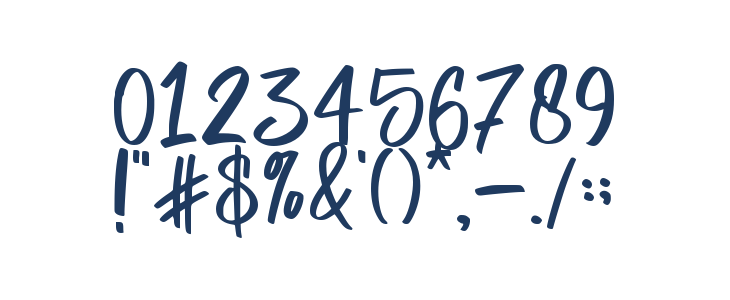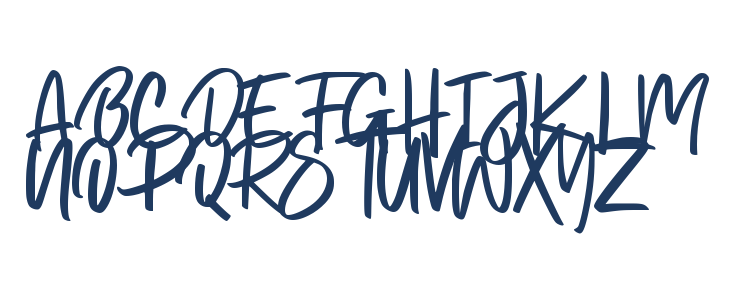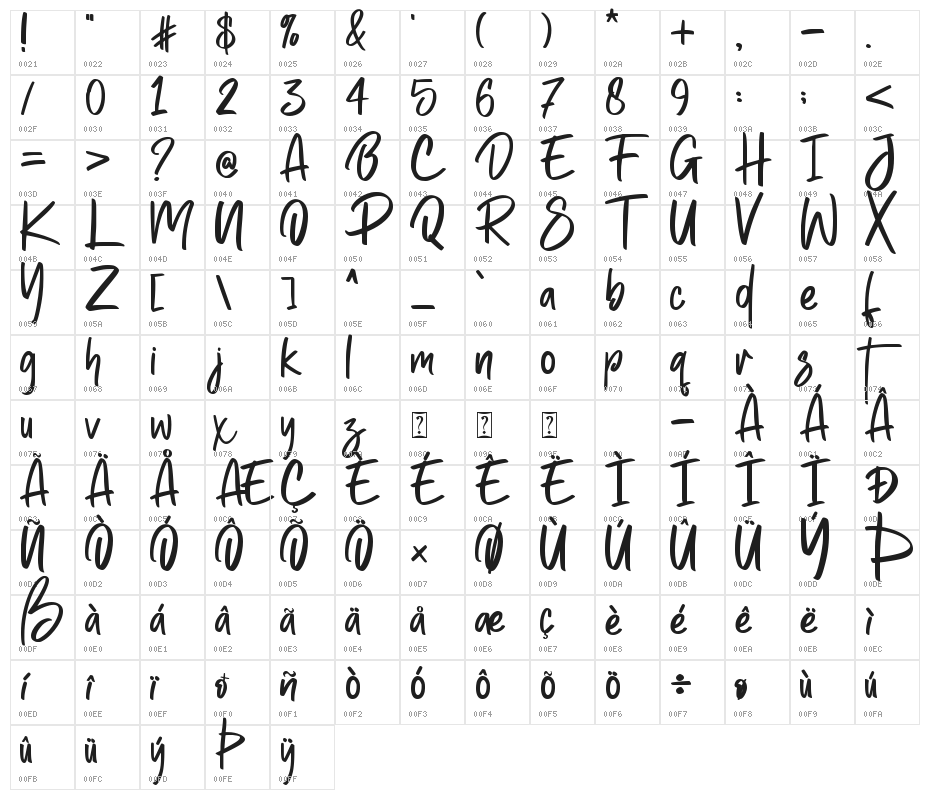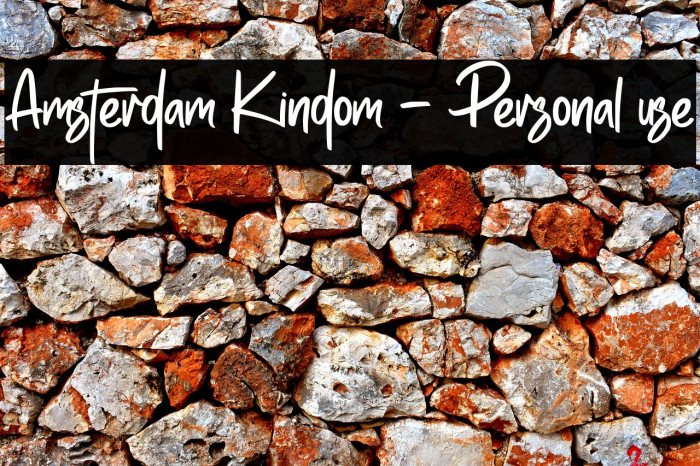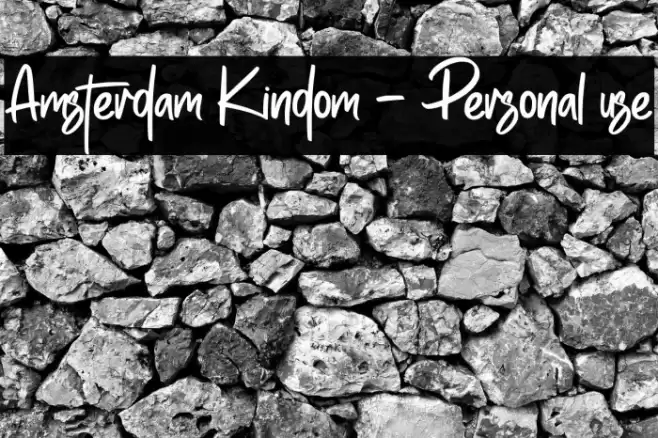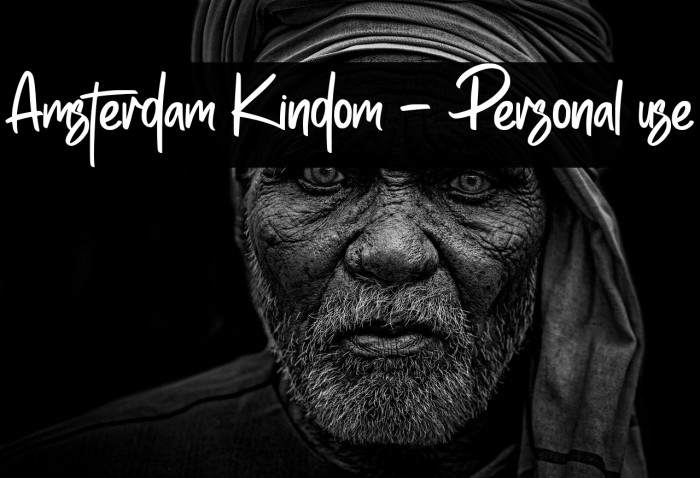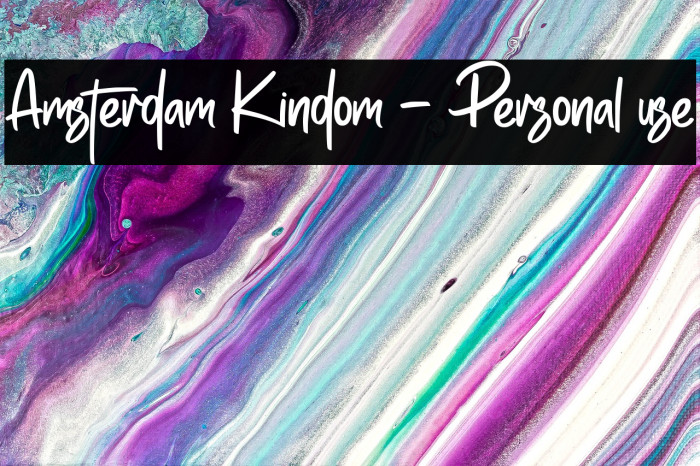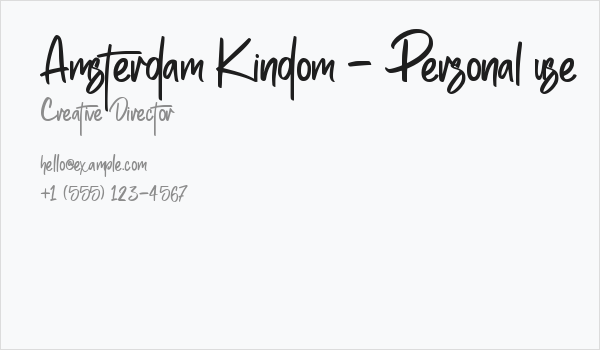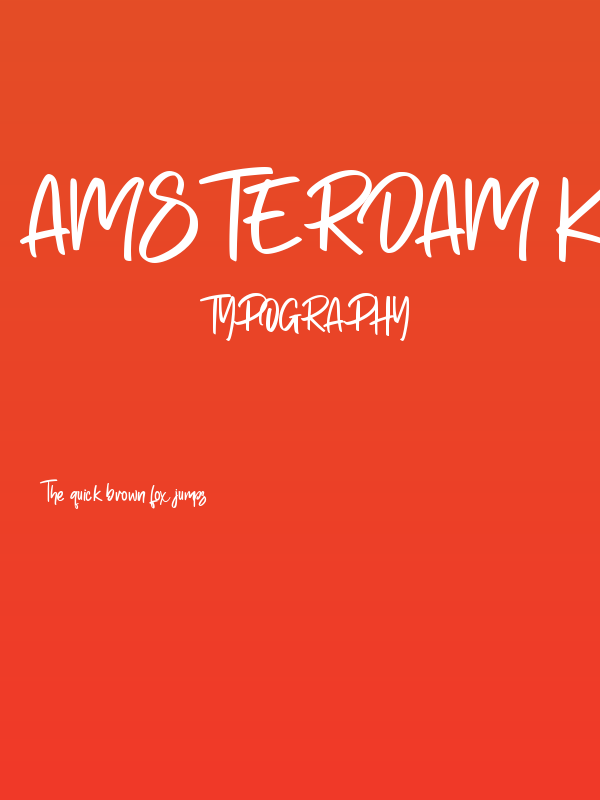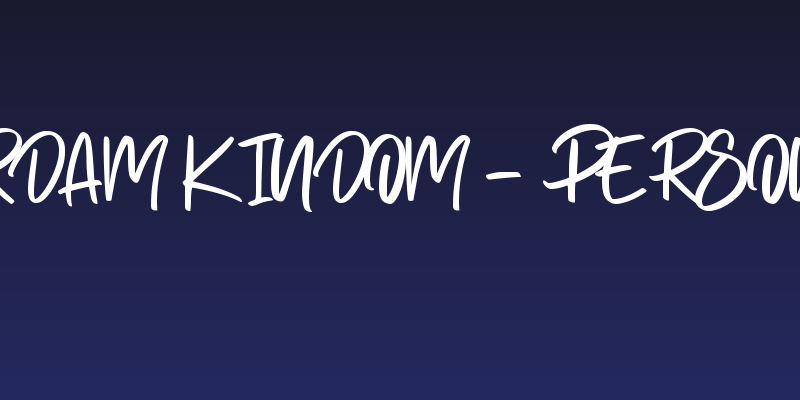
Amsterdam Kindom - Personal use Font
Amsterdam Kindom - Personal use Description
A casual, handwritten script font with a playful and informal style, featuring varying stroke widths and a slightly irregular baseline.
| Overall Style | Casual, Playful, Informal |
| Use Case | Headlines, Body text, Logos, Creative projects |